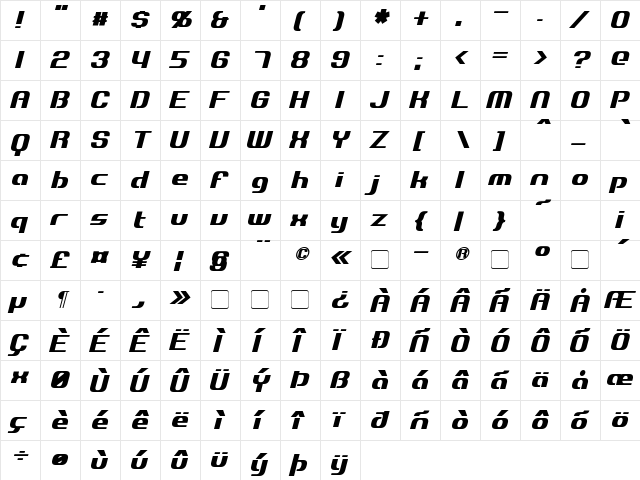
Explorien Italic
| Foundry | Neale Davidson |
| Designer | Neale Davidson |
Design Context for Explorien Typeface
Explorien is a composed and adaptable typeface that performs quietly and consistently across a wide range of design contexts. The dynamic lean of this cut emphasises speed and emphasis in any layout.
Pro Tip: Use Explorien for emphasis, pull quotes, and subheadings where its slanted energy can add rhythm to the layout.